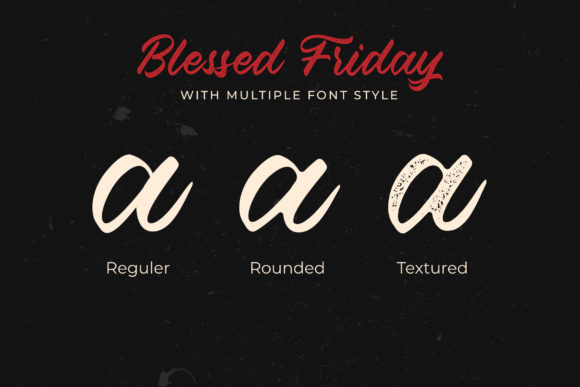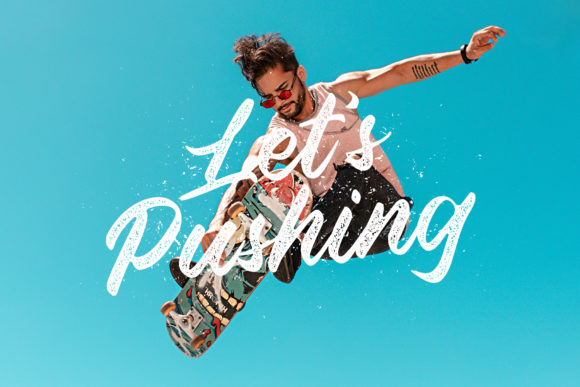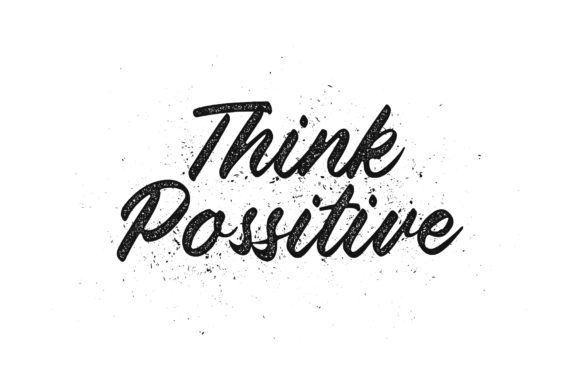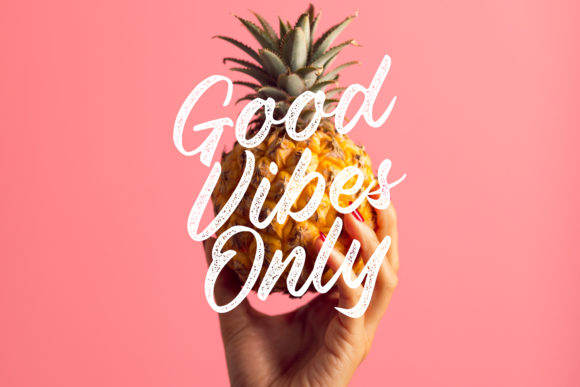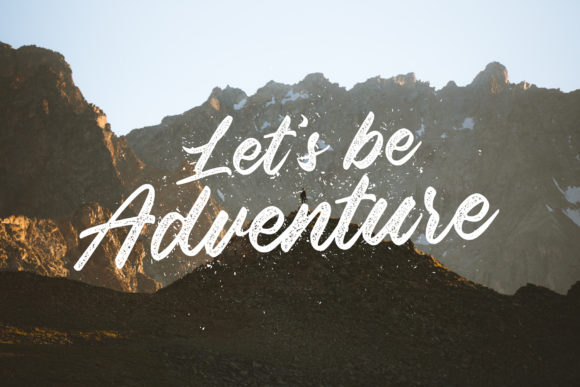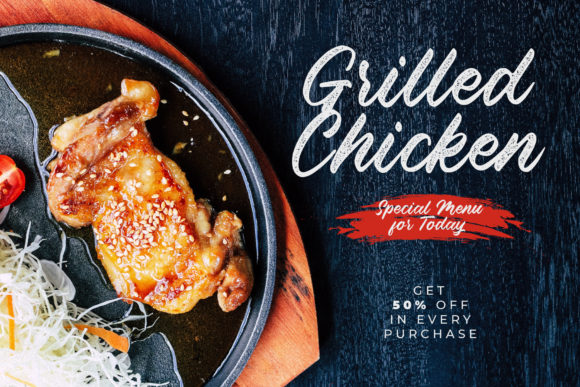
Blessed Friday Font: Elevate Your Design Ideas with this Spectacular Handwritten Font
Are you a designer or crafter looking for a unique and eye-catching font to take your creative projects to the next level? Look no further than the Blessed Friday Font! This stunning handwritten font is sure to impress with its distinctive style and versatility. In this article, we’ll dive into the features and benefits of the Blessed Friday Font, and explore how you can use it to elevate your design ideas.
What is Blessed Friday Font?
Blessed Friday Font is a beautifully crafted handwritten font that boasts a unique and captivating style. Its elegant and flowing lines make it perfect for a wide range of design applications, from branding and advertising to crafting and scrapbooking. Whether you’re looking to create a bold statement or add a touch of sophistication to your designs, Blessed Friday Font is the perfect choice.
Key Features of Blessed Friday Font
• Unique Style: Blessed Friday Font features a one-of-a-kind design that’s sure to set your creations apart from the crowd.
• PUA Encoded: This font is PUA (Private Use Area) encoded, which means you can easily access all of the glyphs and swashes with no fuss.
• Handwritten: The font’s handwritten style gives it a personal and organic feel that’s perfect for adding a touch of warmth to your designs.
• Versatile: Blessed Friday Font can be used for a wide range of design applications, from digital projects to print materials.
Benefits of Using Blessed Friday Font
So why choose Blessed Friday Font for your design projects? Here are just a few benefits of using this amazing font:
• Adds a Personal Touch: The handwritten style of Blessed Friday Font gives your designs a personal and human touch that’s hard to replicate with other fonts.
• Stand Out from the Crowd: With its unique style, Blessed Friday Font is sure to make your designs stand out from the crowd and grab attention.
• Easy to Use: The PUA encoding of Blessed Friday Font makes it easy to access all of the glyphs and swashes, so you can get creative without any hassle.
• Time-Saving: With Blessed Friday Font, you can create stunning designs in no time, thanks to its versatility and ease of use.
How to Use Blessed Friday Font
Ready to get started with Blessed Friday Font? Here are a few ideas for using this amazing font in your design projects:
• Branding and Advertising: Use Blessed Friday Font to create eye-catching logos, ads, and marketing materials that showcase your brand’s personality.
• Crafting and Scrapbooking: Add a touch of elegance to your scrapbook pages, cards, and other craft projects with Blessed Friday Font.
• Digital Projects: Use Blessed Friday Font to create stunning digital designs, such as social media graphics, blog headers, and more.
Tips and Tricks for Getting the Most out of Blessed Friday Font
Here are a few tips and tricks for getting the most out of Blessed Friday Font:
• Experiment with Different Sizes: Try out different font sizes to see how Blessed Friday Font looks in various contexts.
• Pair it with Other Fonts: Combine Blessed Friday Font with other fonts to create interesting and dynamic typography.
• Play with Colors: Experiment with different colors and textures to add depth and interest to your designs.
In conclusion, Blessed Friday Font is a truly spectacular handwritten font that’s sure to elevate your design ideas and take your creative projects to the next level. With its unique style, PUA encoding, and versatility, this font is a must-have for designers and crafters alike. So why wait? Get your hands on Blessed Friday Font today and start creating stunning designs that will leave a lasting impression!